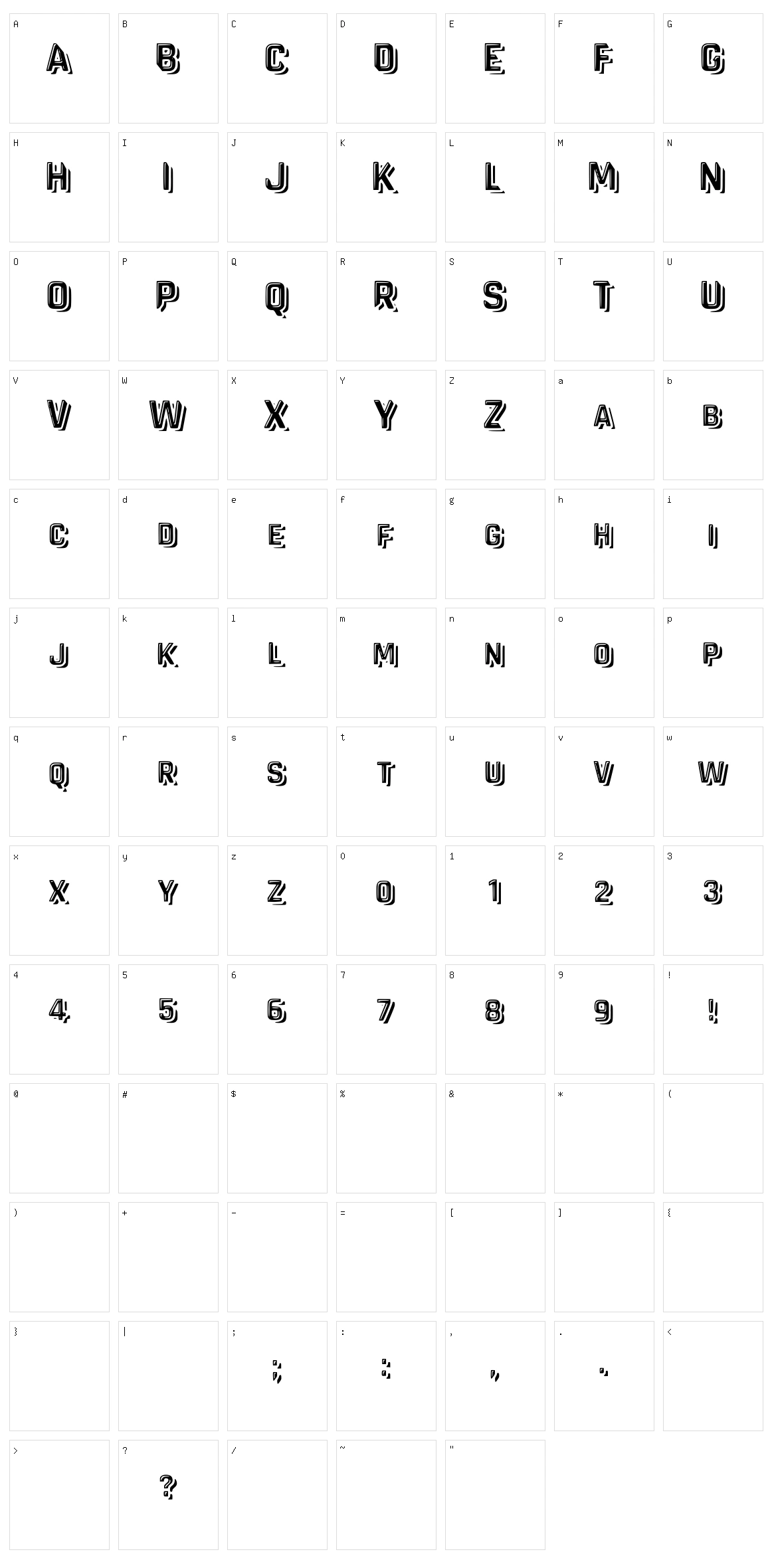
The free font Vandervon is carefully designed by dee signator, showcasing a thoughtful balance of creativity and usability and falls under the Retro font style. When you download the ZIP file, it contains only 21.24 KB of font files, making it lightweight and quick to download. Please review the license details below to understand permitted usage and distribution rights. If license information is not available, we recommend using this font for personal projects only or contacting the author directly for commercial usage permissions.